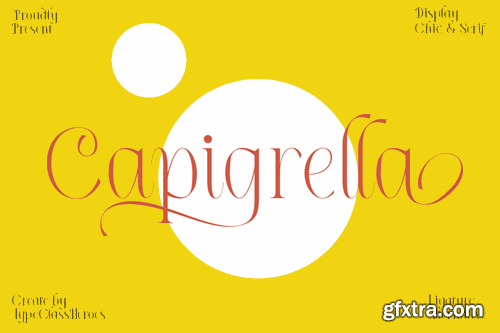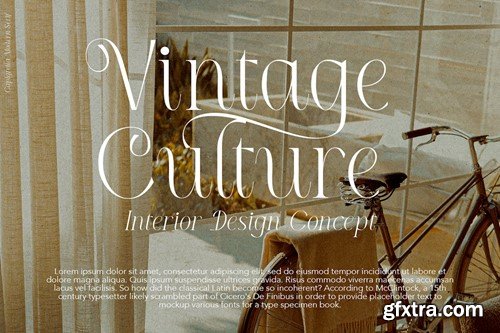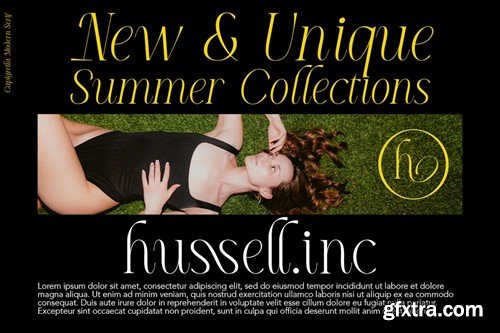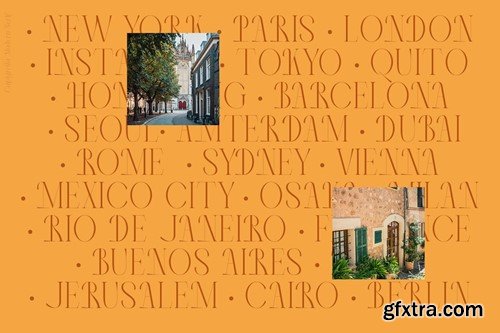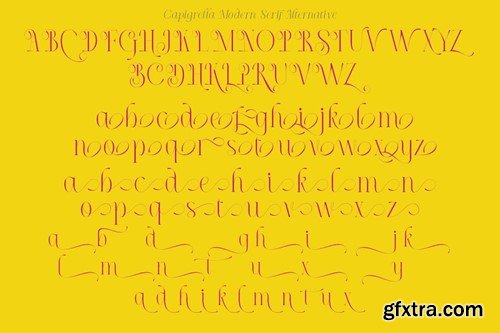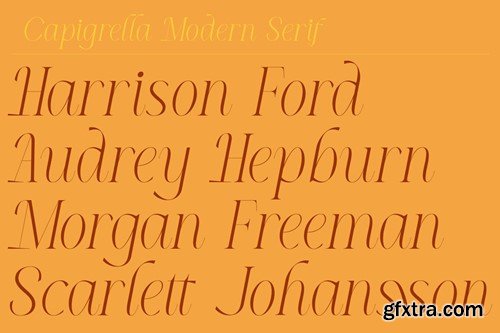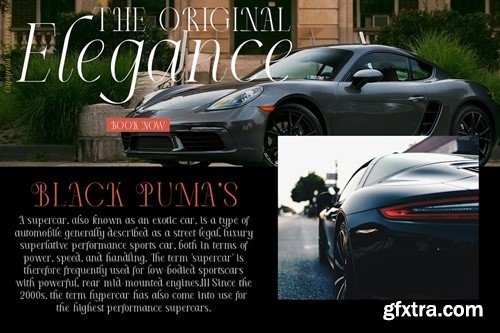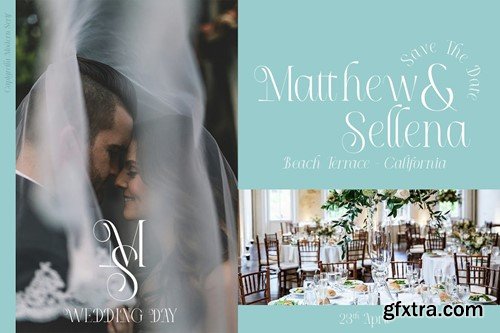
Hello I'm really excited to introduce Capigrella is a chic serif with classic feel become elegant minimalist look and this font has the potential to bring each of your creative ideas to the highest level. With style combine with ligatures and special alternative glyphs so you can create a lots with layouts and compositions. Capigrella brings a touch of luxury and bespoke custom typography to logos, websites, social media quotes, wedding branding, and many more. Feature Feel free to drop us a message any time and follow my shop for upcoming updates. Hope you enjoy it.